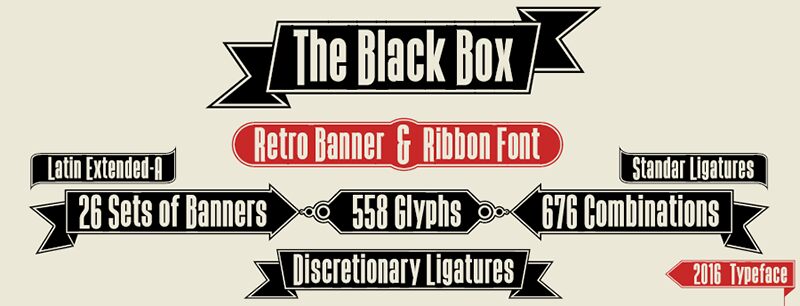
TheBlackBox
The Black Box is a negativ condensed sans font, surrounded by a frame, this frame builds a box with border, <i>the font also contains 26 sets of box closures with 676 possible combinations to created great retro banners & ribbons.</i>
The Black Box es una tipografia sans condensada en negativo rodeada de un marco tipo caja con bordes, contiene 26 juegos de cierres de caja con estilo vintage. Estos cierres dan lugar a 676 combinaciones posibles para crear muchos retro banners & ribbons.